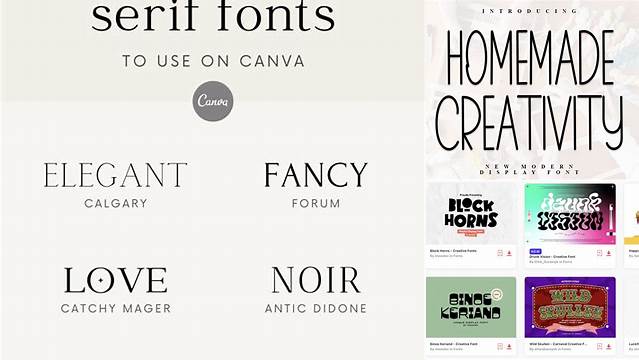
Unlock Your Creativity: Best Font Packs To Download
Hey everyone! Ever felt like your designs are just… missing something? Maybe it’s that perfect script font for a wedding invitation, or a super bold sans-serif for a killer poster. Well, guys, you’re in luck! Today we’re diving deep into the amazing world of font packs and where you can snag the best font packs for download. Having a killer collection of fonts is like having a secret weapon in your design arsenal, and trust me, it can elevate your projects from “meh” to “WOW!” in seconds. We’re talking about fonts that grab attention, convey emotion, and make your message unforgettable. So, ditch those default system fonts and get ready to explore a universe of typographic magic. Whether you’re a seasoned pro or just starting out, having access to high-quality, diverse font packs is crucial. It’s not just about aesthetics; it’s about effective communication. A well-chosen font can significantly impact how your audience perceives your brand or message. Think about it: a playful, quirky font might be perfect for a children’s book, while a sleek, minimalist font would be ideal for a luxury brand. The possibilities are truly endless, and the right font pack can open up a whole new realm of creative expression. We’ll guide you through the best places to find these treasures, what to look for in a quality font pack, and how to use them effectively to make your designs shine.
Why Download Font Packs? The Ultimate Design Advantage
So, you might be asking yourself, “Why should I bother downloading dedicated font packs when I already have fonts on my computer?” Great question, guys! The answer is simple: variety, quality, and specialty. Standard fonts that come pre-installed on your computer are usually pretty basic and, frankly, a bit boring. They’re functional, sure, but they lack the personality and flair that can make your designs truly stand out. Font packs, on the other hand, are curated collections designed for specific purposes or styles. Think of them as designer-curated bundles of typographic goodness. You get a cohesive set of fonts that work well together, often covering a range of weights and styles (like regular, bold, italic, light, etc.), making them incredibly versatile. This saves you the time and hassle of hunting down individual fonts that match. Plus, many font packs are released by professional type designers, meaning you’re getting high-quality, meticulously crafted letterforms. This translates to better readability, superior aesthetic appeal, and a more polished final product. Whether you’re a graphic designer, a web developer, a blogger, or just someone who loves to create, having a robust font library at your fingertips is a game-changer. It allows you to experiment, express different moods, and ensure your typography perfectly complements your visual content. It’s not just about making things look pretty; it’s about ensuring your message is clear, impactful, and memorable. Investing in good font packs is an investment in the overall quality and professionalism of your creative work.
Top Websites for Premium Font Pack Downloads
Now, if you’re looking to really up your game and invest in some truly unique, high-end typography, then exploring premium font pack downloads is the way to go. These are the fonts that often have that extra bit of polish, the unique character, and the extensive language support that makes them perfect for professional branding and high-impact designs. Sites like MyFonts are industry giants, offering an overwhelming selection of fonts from foundries all over the world. You can filter by style, price, designer, and even by mood, which is super helpful. Creative Market is another fantastic hub, brimming with stylish and contemporary fonts, often sold in packs that include multiple weights, extras like ligatures or swashes, and even bonus graphics or textures. It’s a great place to find trending styles. Envato Elements is a subscription service that gives you unlimited access to millions of creative assets, including a huge library of fonts. If you’re a frequent downloader, this can be incredibly cost-effective. Fontspring is known for its excellent licensing options and often has sales, making those premium fonts a bit more accessible. These platforms offer fonts that have been painstakingly crafted by professionals, ensuring impeccable quality, extensive character sets, and often, robust support. While they come with a price tag, the investment in a high-quality premium font pack can significantly elevate the perceived value and aesthetic appeal of your design work, making it a worthwhile expenditure for serious creatives.
Essential Font Styles Included in Top Packs
When you’re diving into downloading the best font packs, it’s super helpful to know what kind of styles are usually included to ensure you’re getting a well-rounded collection. Most quality packs will offer a mix, but here are some essential styles you’ll want to look out for: Serif fonts are the classics, with little feet (the serifs) at the ends of the strokes. Think Times New Roman. They convey tradition, reliability, and formality, making them great for body text in books, newspapers, and articles. Sans-serif fonts, on the other hand, lack these little feet (sans means